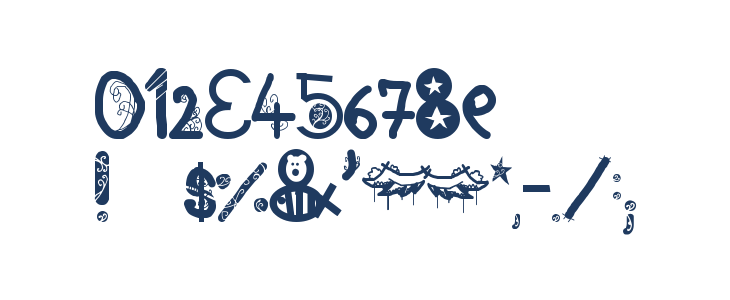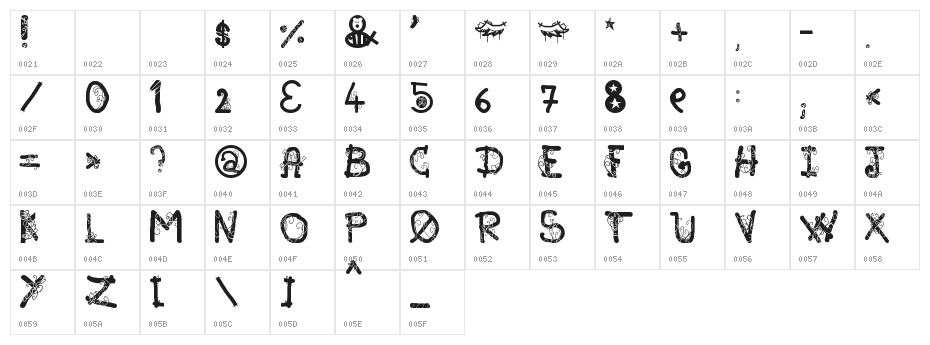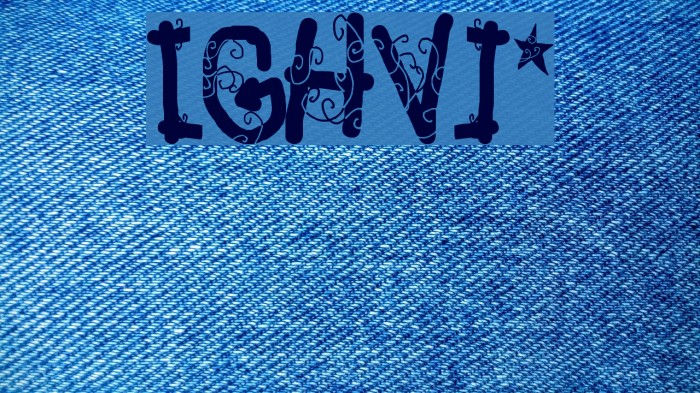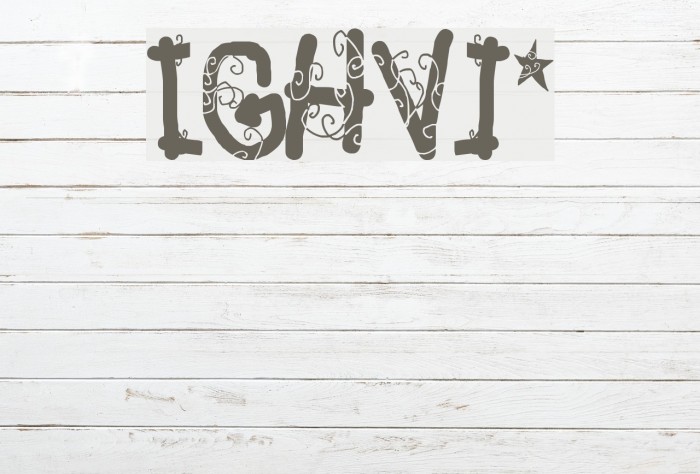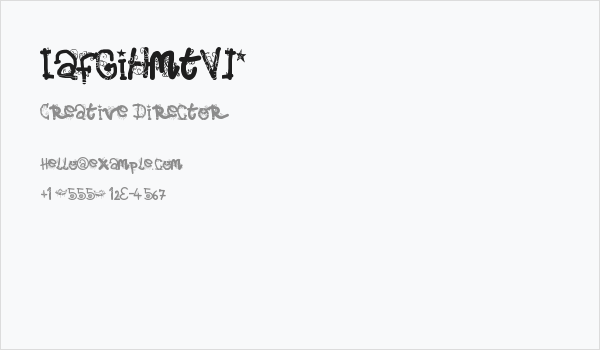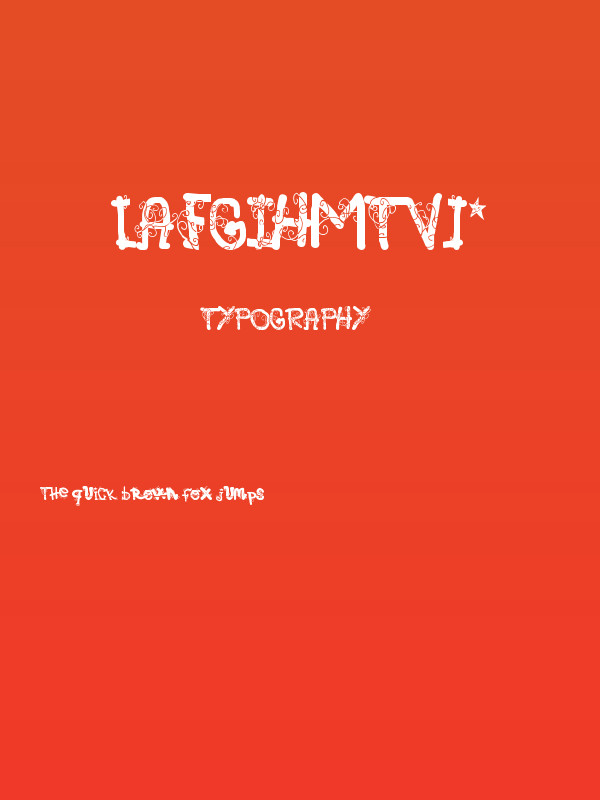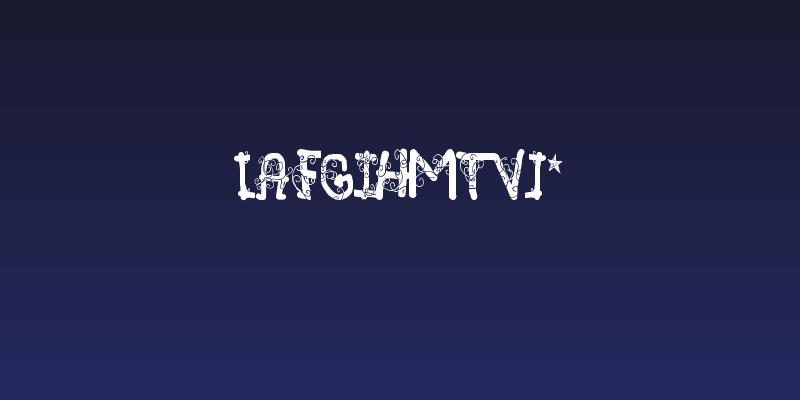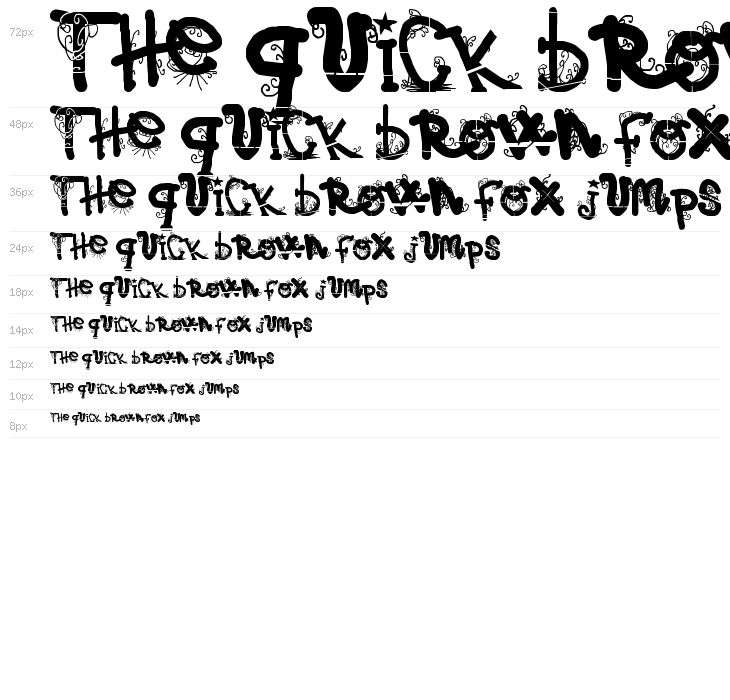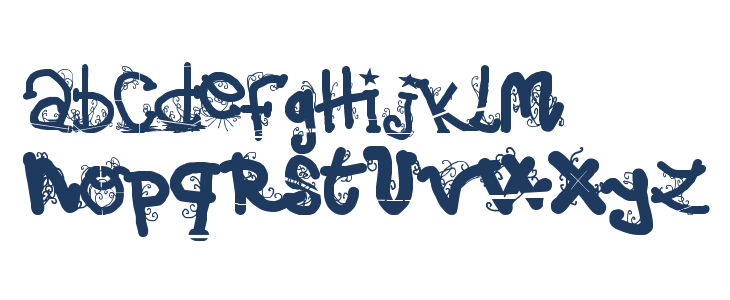
[afGiHmtV]* Font
[afGiHmtV]* Description
This font is a highly decorative and whimsical typeface, characterized by intricate floral and vine embellishments that intertwine with each letterform. The uppercase and lowercase letters are playful, with varying stroke thicknesses and unique design elements such as stars and swirls. Numbers and special characters are equally ornate, featuring creative motifs that enhance the overall fanciful appearance. This font exudes a sense of fantasy and creativity, making it stand out with its artistic flair.
| Proposed Projects | Ideal for fantasy-themed projects, invitations, greeting cards, and artistic posters. |